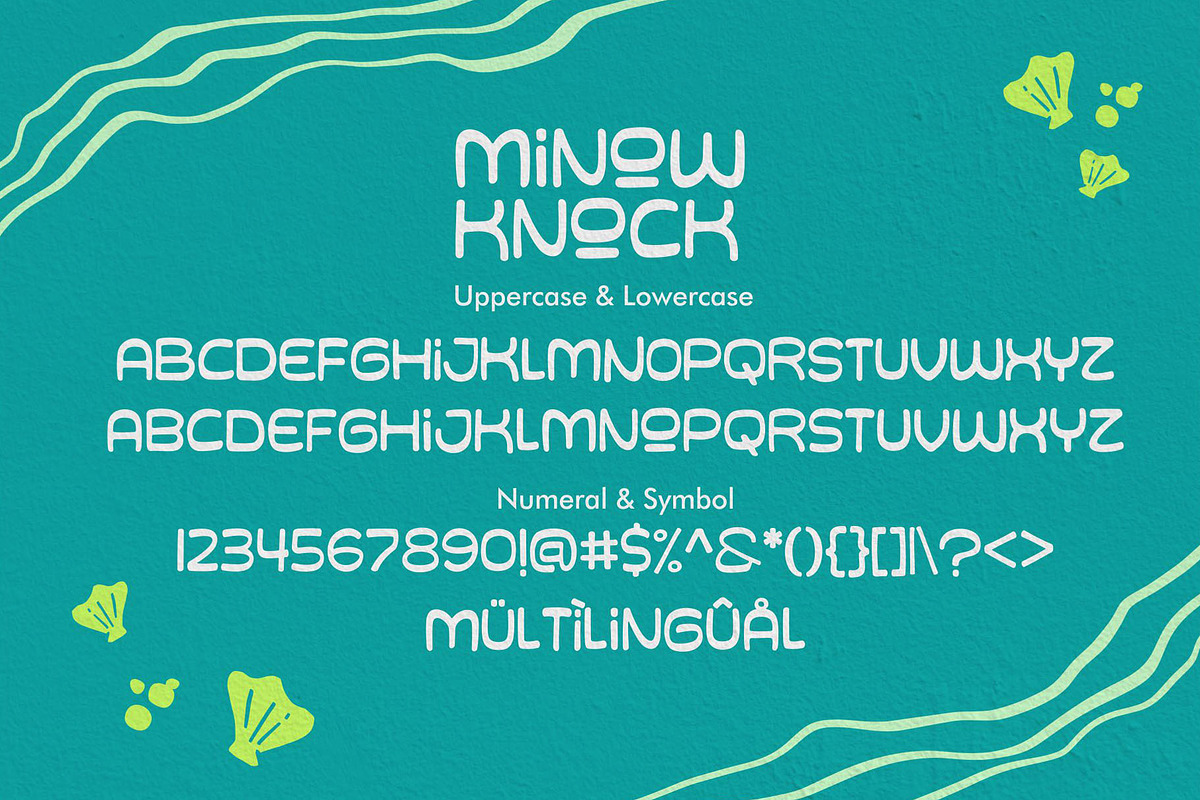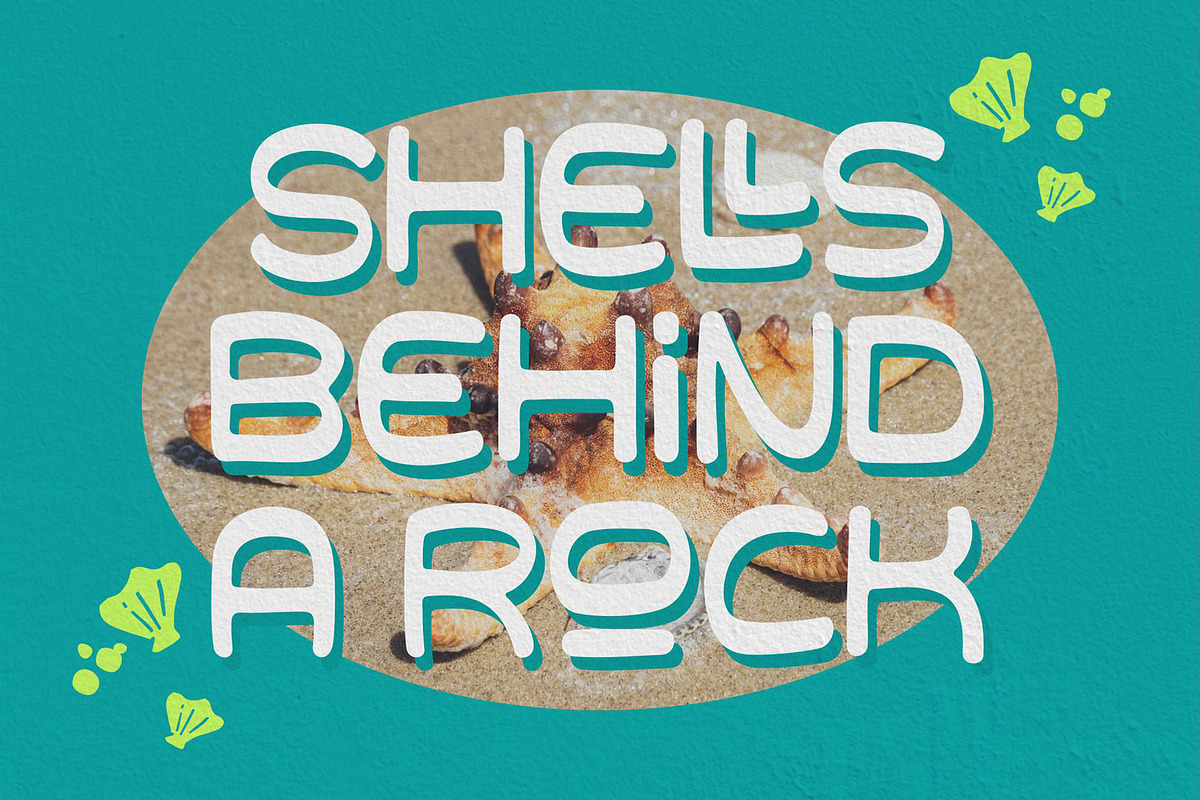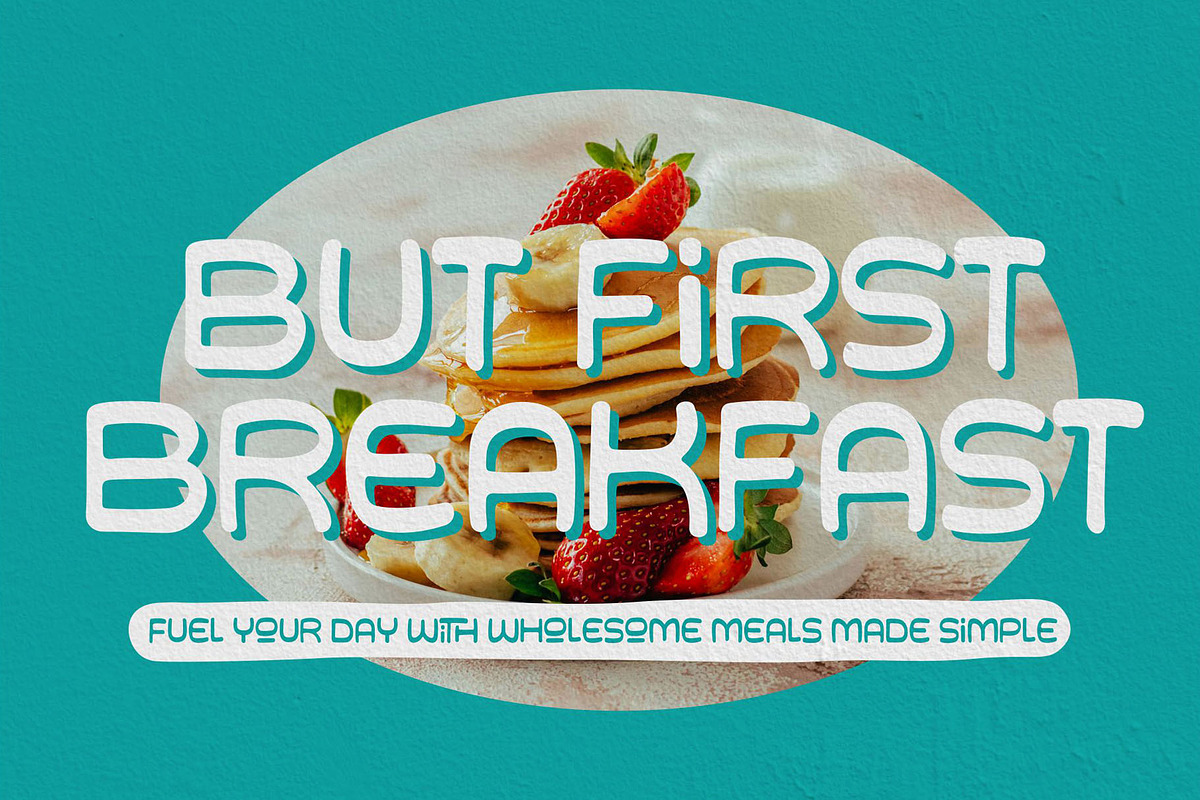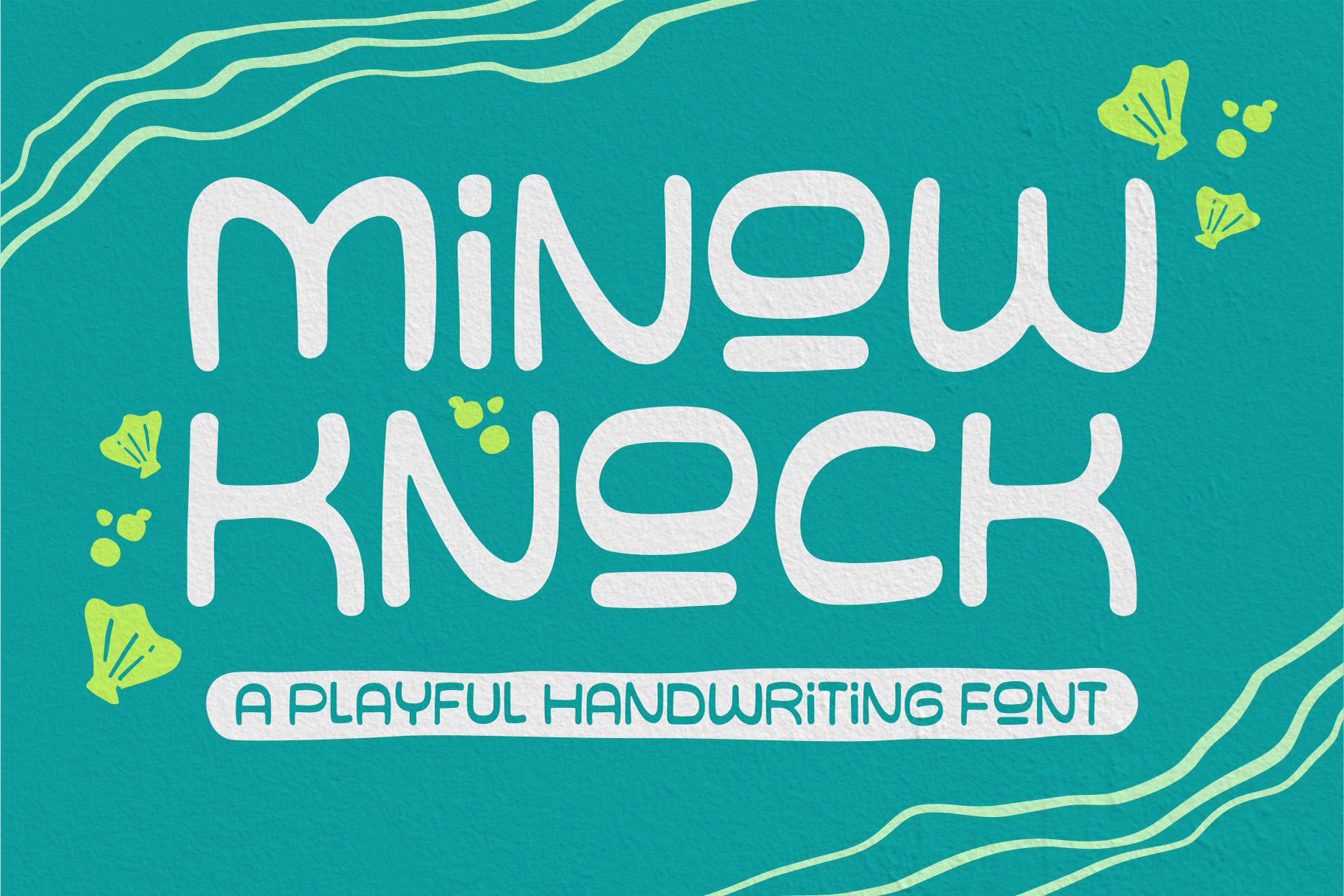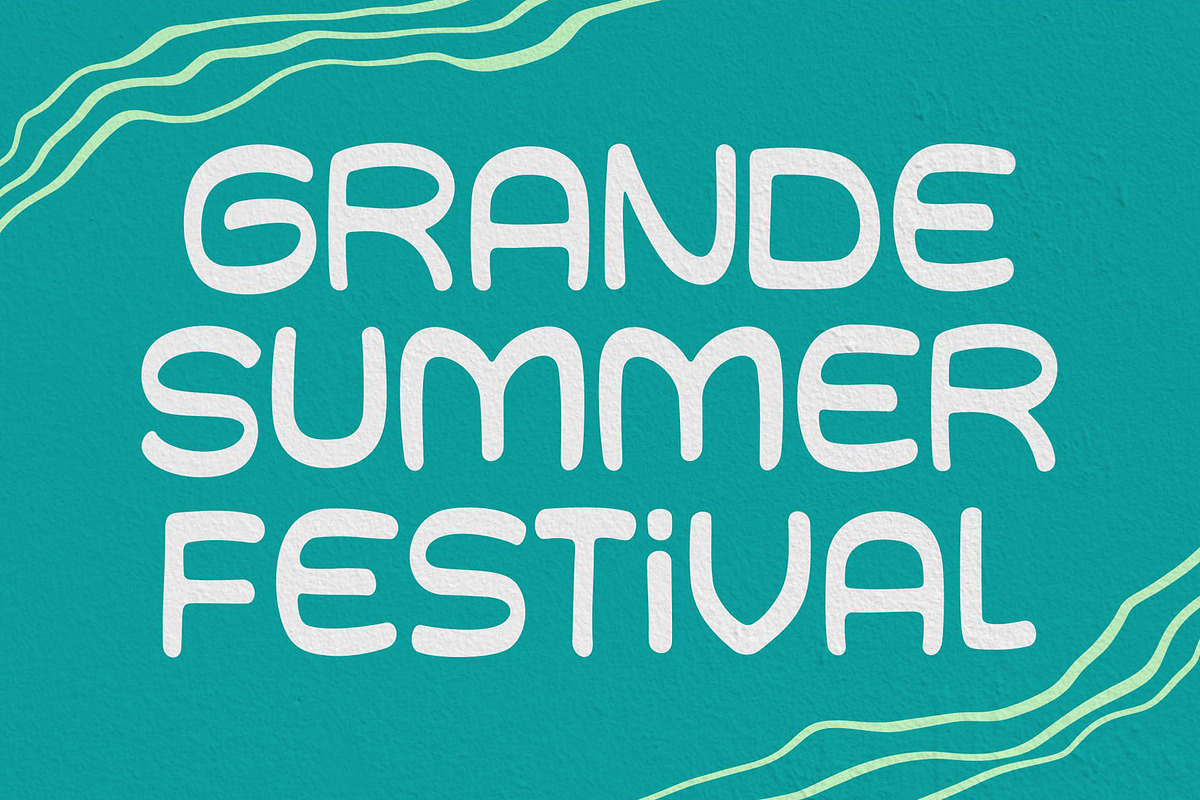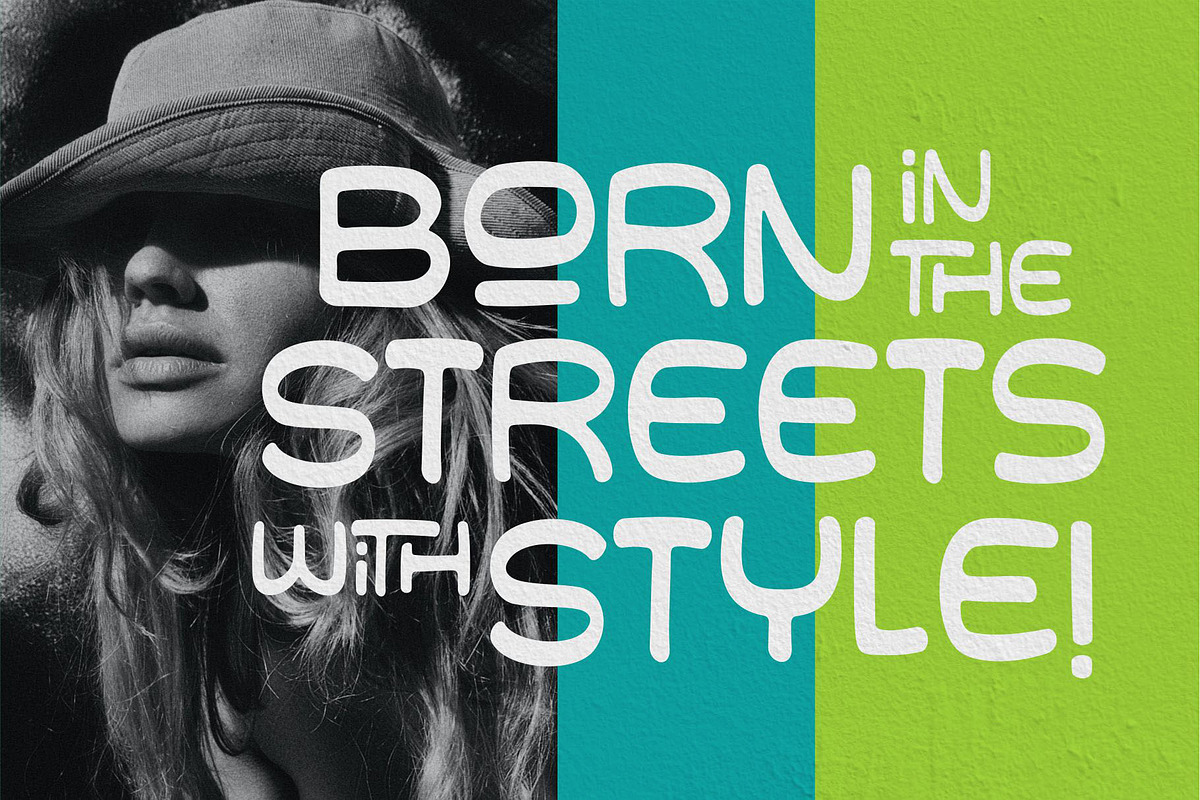
Minow Knock - Handwriting Font
Minow Knock – This font is made with natural and unique handwritten strokes, has its own shape and character. Font is ideal for branding projects or packaging that need a quirky and playful feel. Perfect for a wide range of applications, from crafting eye-catching headings and dynamic logotypes to bringing energy to quotes, apparel, invitations, flyers, posters, greeting cards, product packaging, book covers, and printed quotes.
Multilanguage Supports